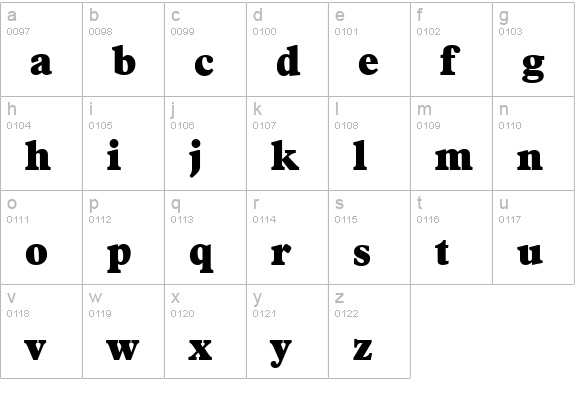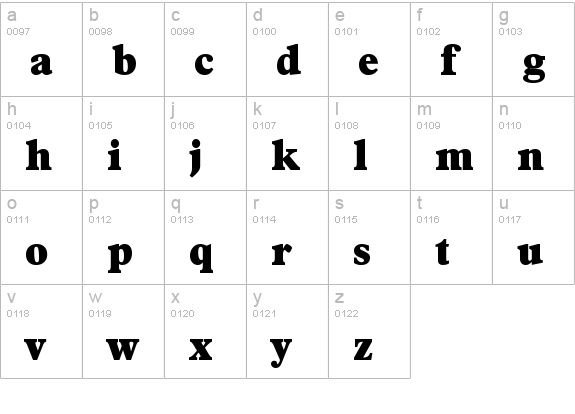
FranciscoSerial-Heavy-Regular is a heavy, high-impact variant in the FranciscoSerial typeface family \xE2\x80\x94 well suited to high-impact headlines, posters, and display advertising.
Introducing FranciscoSerial-Heavy-Regular, a bold and powerful font that demands attention with its strong presence. This font exudes confidence and modernity, making it the perfect choice for bold headlines, impactful branding, and eye-catching designs. With its thick letterforms and clean lines, FranciscoSerial-Heavy-Regular makes a statement while remaining easy to read. Whether you're designing a poster, logo, or website, this versatile font will help your message stand out. Best of all, FranciscoSerial-Heavy-Regular is available for free download at FontsMarket.com. This means you can elevate your designs without breaking the bank, making it a valuable addition to any designer's toolkit. Don't miss out on the opportunity to enhance your projects with this striking and impactful font today!